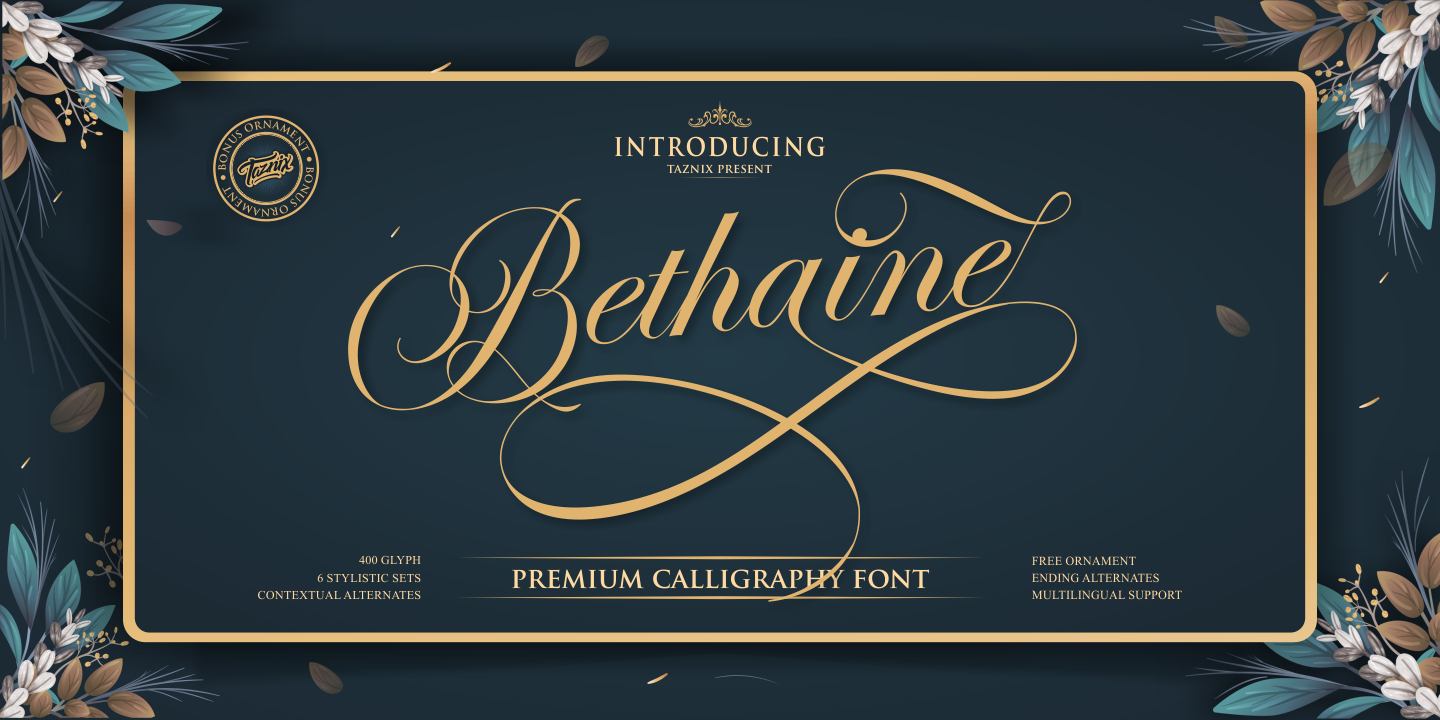
Bethaine Font is perfect for elegant feminine branding, sophisticated beauty salons, graceful wedding planners, luxury spa marketing, refined fashion boutiques, delicate jewelry designs, intimate personal stationery, charming women's lifestyle magazines, and tasteful feminine product packaging.
What makes Bethaine Font so exciting is its graceful femininity that perfectly embodies the timeless elegance and sophisticated charm of refined womanhood and delicate beauty. This exquisite typeface features flowing letterforms with feminine curves and graceful proportions that create an atmosphere of gentle sophistication and understated luxury. The font's distinctive character incorporates the essence of feminine grace while maintaining exceptional readability, making it ideal for beauty brands seeking to communicate elegance, refinement, and authentic feminine appeal.
Bethaine Font includes a graceful family with Regular, Bold, Light, and Script variations, each maintaining the signature feminine aesthetic while offering different levels of elegant emphasis for various beauty and lifestyle applications. Additional delicate ornaments and feminine decorative elements provide extra creative possibilities for designers working on women-focused and beauty projects.
Whether you're developing sophisticated feminine brands, creating elegant beauty materials, or designing graceful lifestyle campaigns, Bethaine Font Free Download delivers the refinement and feminine authenticity that women's luxury projects require. Its versatile nature makes it suitable for both digital beauty content and print feminine applications while maintaining consistent elegant appeal across all sophisticated platforms. This exceptional typeface brings genuine feminine grace to your designs, ensuring your message communicates elegance and sophistication that resonates with women who appreciate refined beauty and value design that celebrates the wonderful grace and timeless elegance of feminine style and sophisticated lifestyle choices.